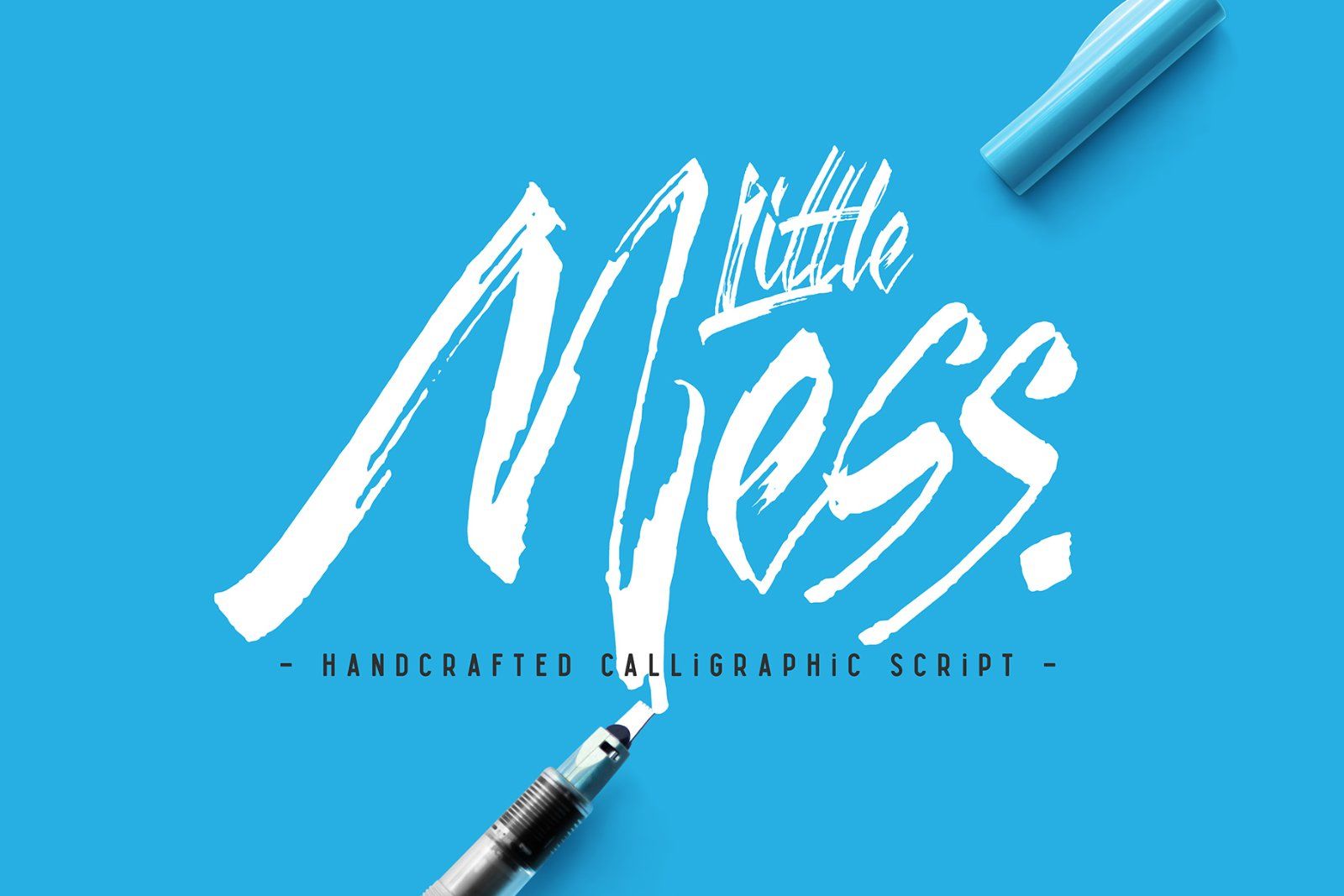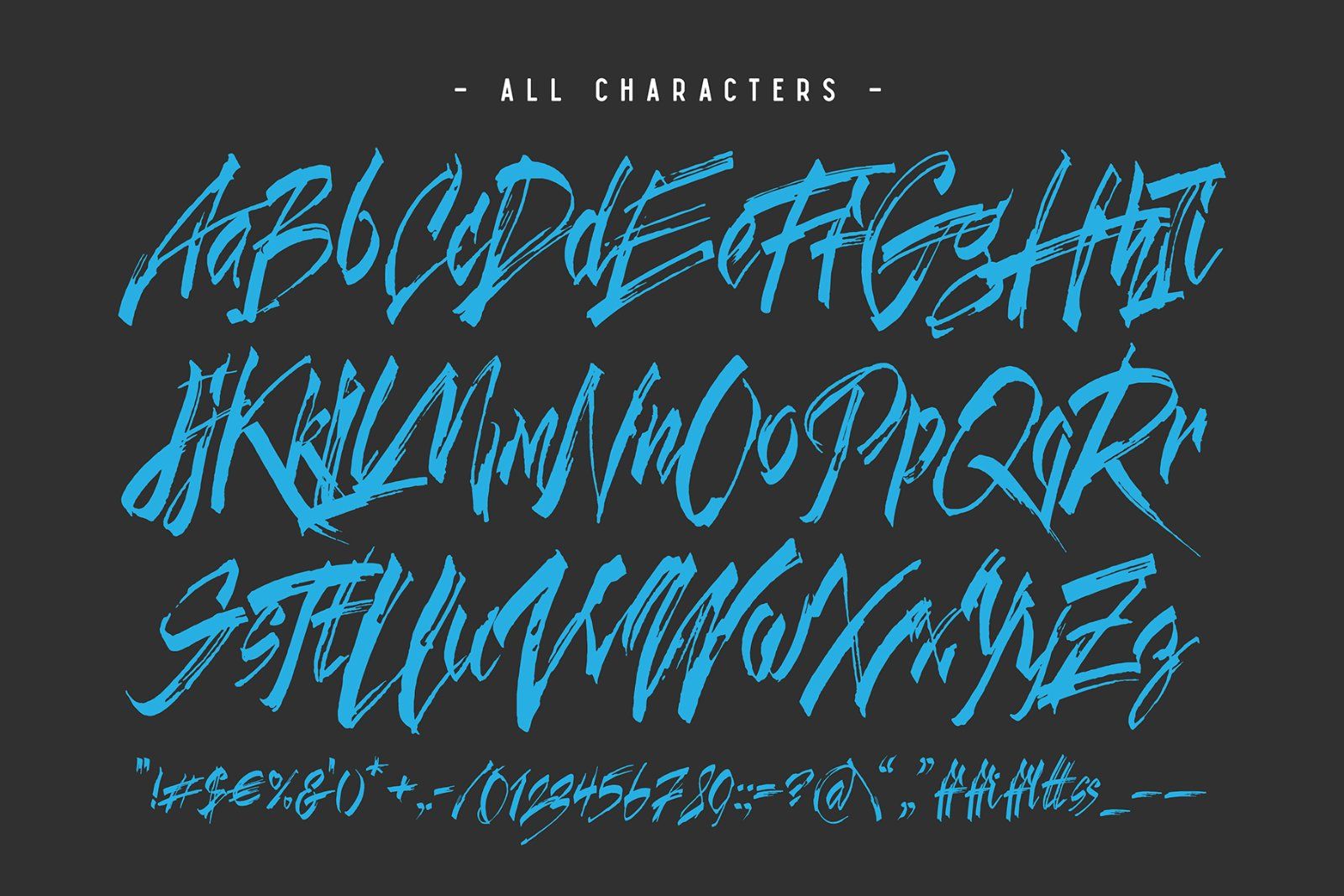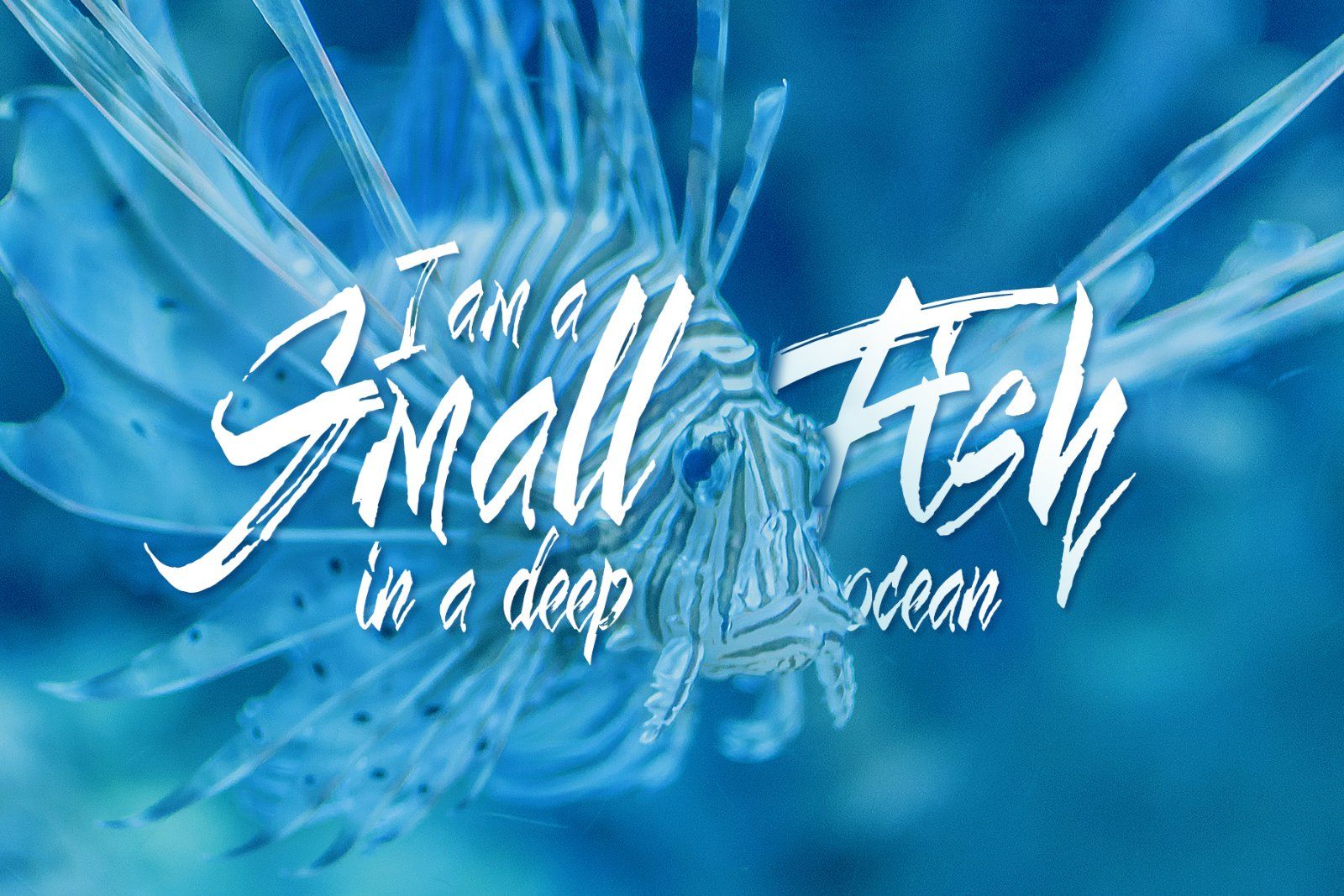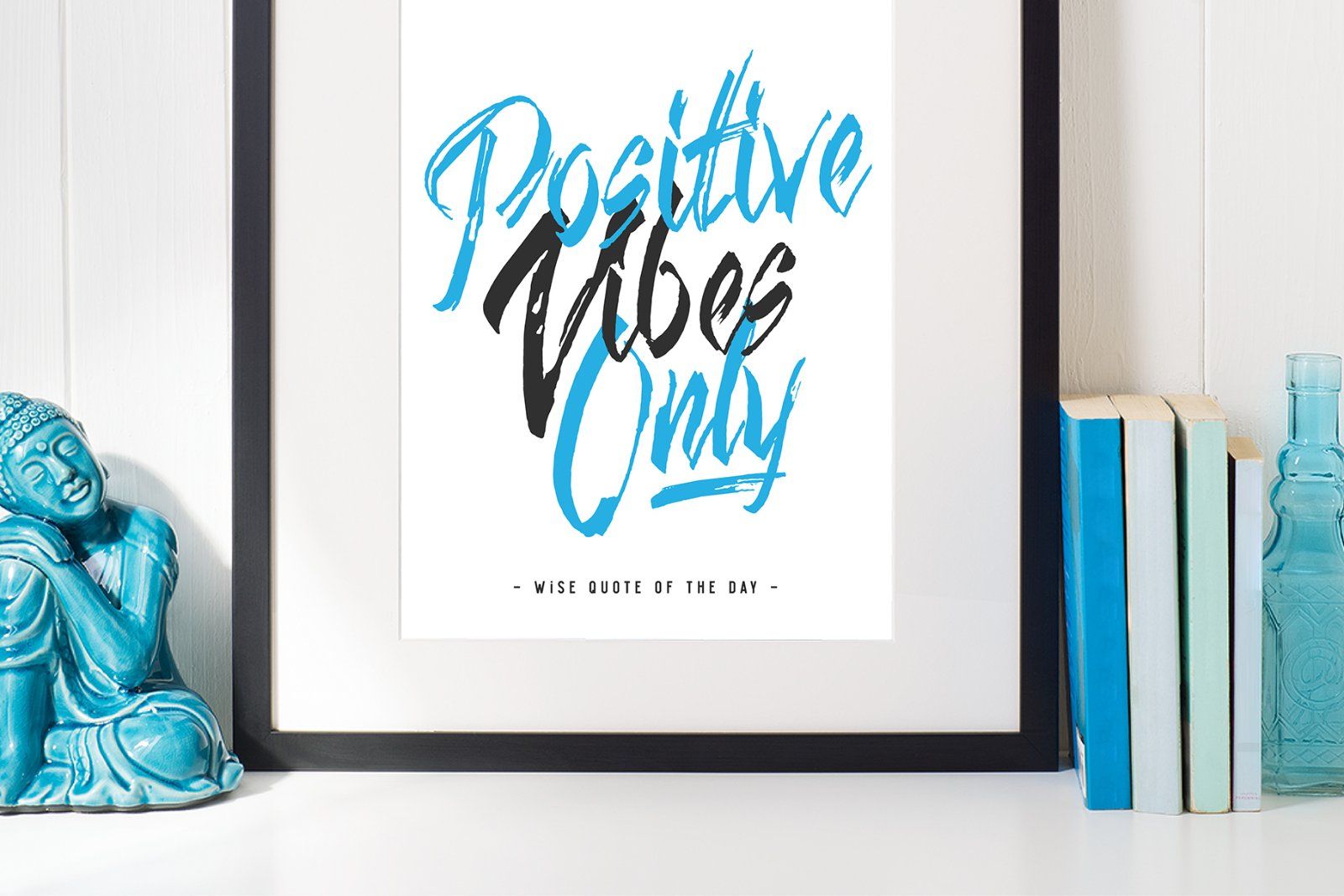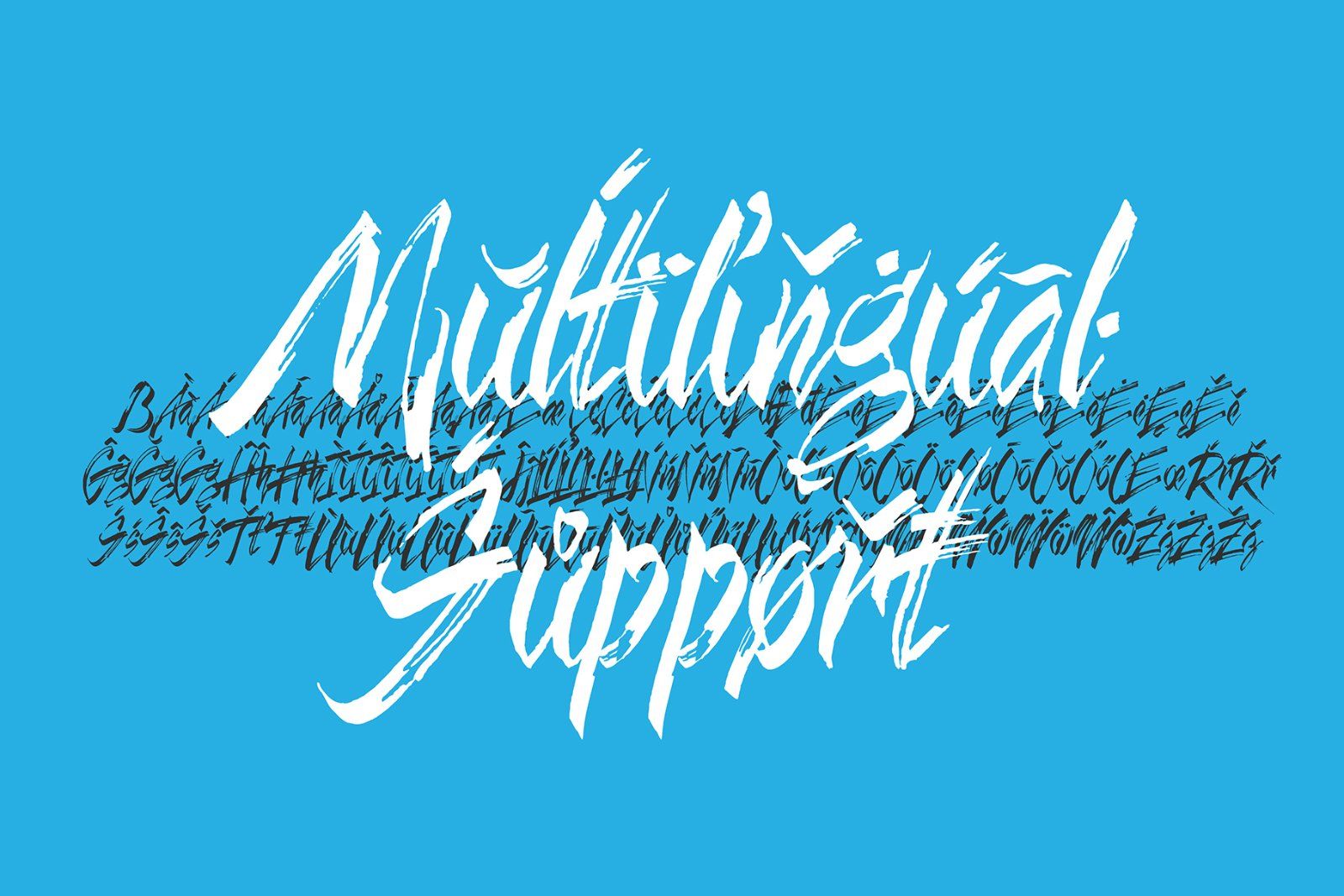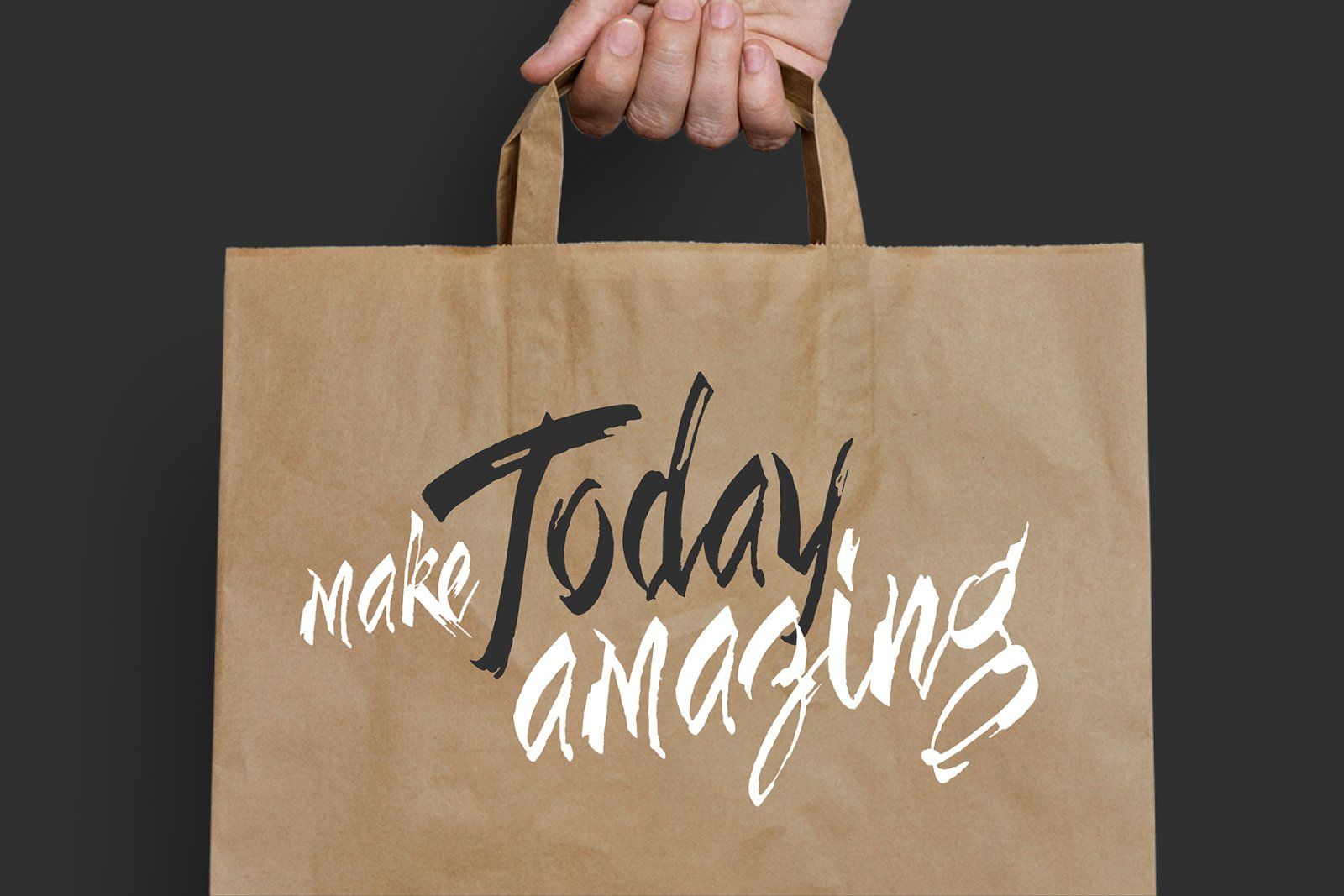
Hi! Introducing handcrafted calligraphic script named "Little Mess". It's made with calligraphic pen in a casual rough style. It has a multilingual support and several ligatures (all available characters you can see on 2nd and 5th screenshots).